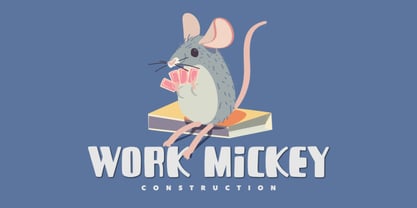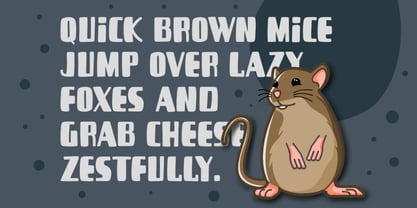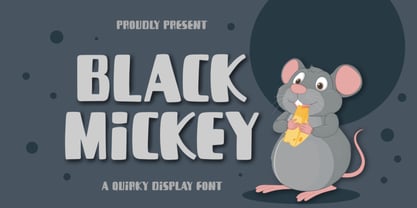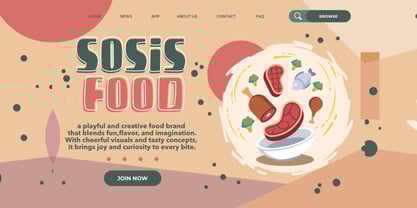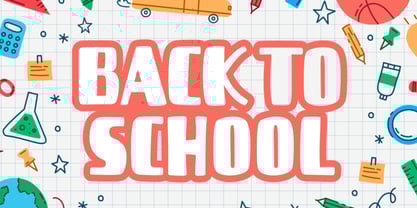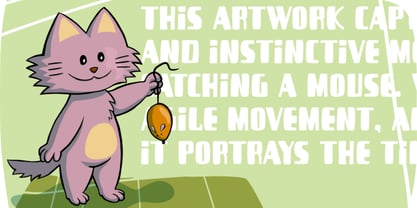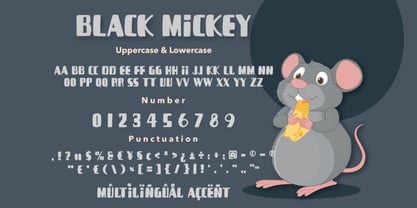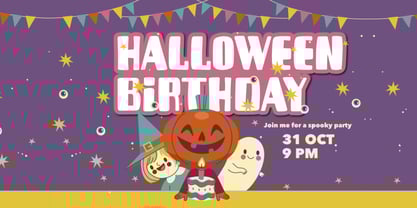
Black Mickey
by Bayuktx
The Black Mickey Font Family was designed by Bayu Aji Fais Mursid and published by Bayuktx. Black Mickey contains 1 styles. More about this family
Black Mickey a Quirky Font Black Mickey A Quirky Font captures the cheerful and playful spirit of fun storytelling and cartoon design. With its rounded edges, bouncy curves, and friendly charm, this typeface radiates joy and personality — perfect for projects that need a dose of happiness and humor. Every letter feels alive, mimicking the whimsical energy of animated characters and the cozy world of childhood imagination. Designed to be both bold and approachable, Black Mickey brings warmth and charm to any creative scene. This font is ideal for playful branding, food packaging, children’s books, or any design that celebrates fun and positivity. Black Mickey turns simple words into a delightful visual experience that’s both expressive and memorable. Key Features : * Uppercase & Lowercase * Numerals & Punctuation * Multilingual Support * PUA Encoded & OpenType Features * Suitable For : * Kids & Cartoon Branding * Food & Snack Packaging * Playful Logos & Titles * Posters & Merchandise * Children’s Book Covers & Story Projects With Black Mickey A Quirky Font, your designs will smile with personality — friendly, fun, and irresistibly charming.
Designers: Bayu Aji Fais Mursid
Foundry: Bayuktx